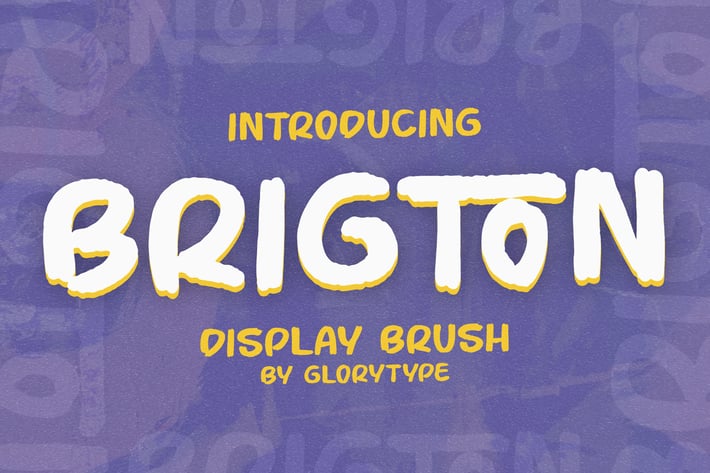
Brigton Display Brush Font
Brighton is a bold and energetic display brush font designed to bring a hand-painted and youthful vibe to your creative projects. Each letter carries a textured brush stroke that gives it a casual yet confident personality — perfect for impactful titles and expressive branding.
With its natural brush detail and imperfect edges, Brighton stands out in posters, social media quotes, t-shirt prints, and packaging designs. It’s playful, artistic, and full of character — a perfect choice for projects that need a bold handmade touch.
Uppercase & Lowercase Letters
Numerals & Punctuation
Natural Hand-Brushed Texture
Perfect for Display & Headline Use
Posters & Headlines
Merchandise & Apparel Design
Quote Typography
Social Media Graphics
Branding & Logo Projects
* DIY or Artistic Layouts
Loud, fun, and full of personality — Brighton brings your designs to life with the raw energy of brush lettering.